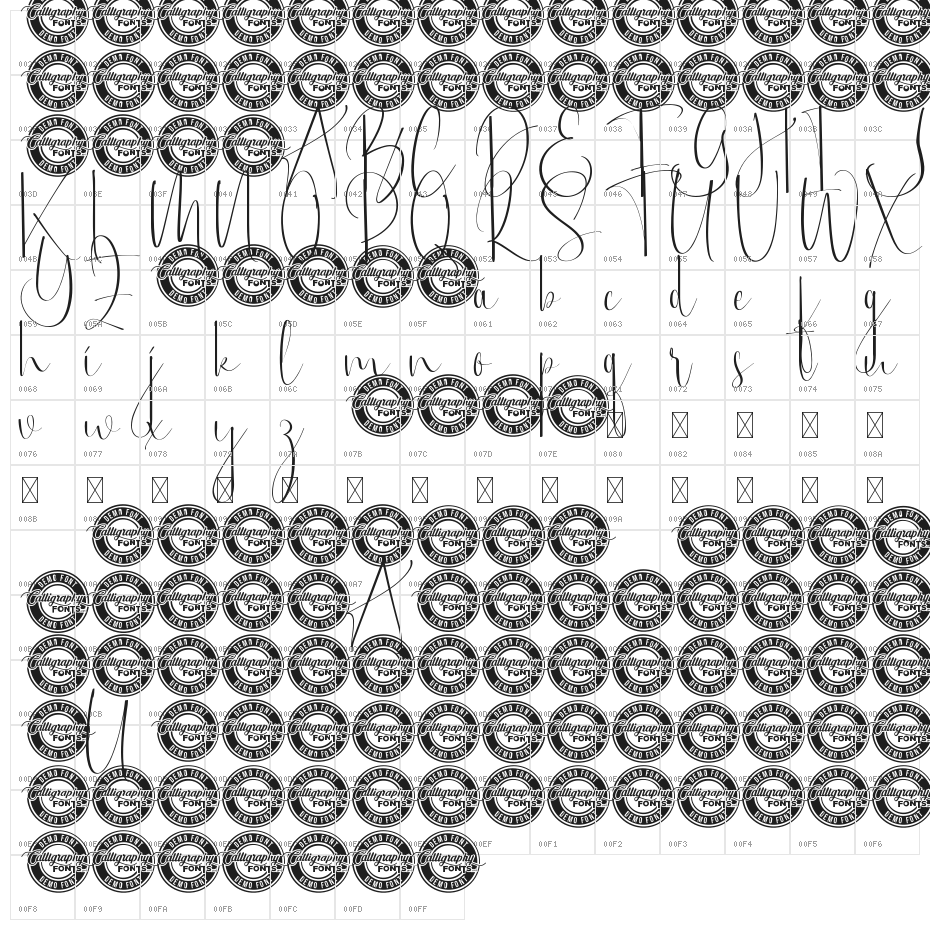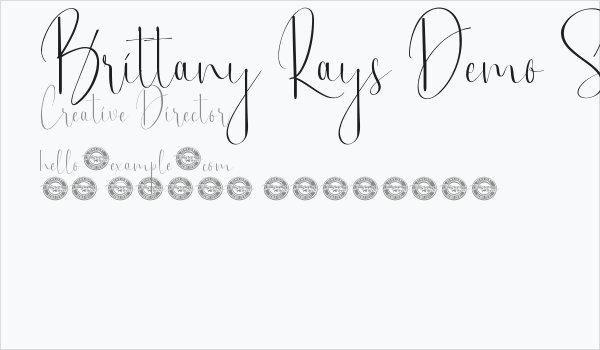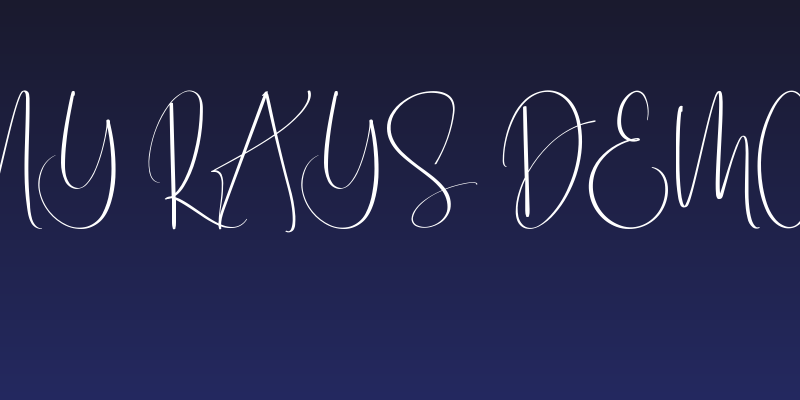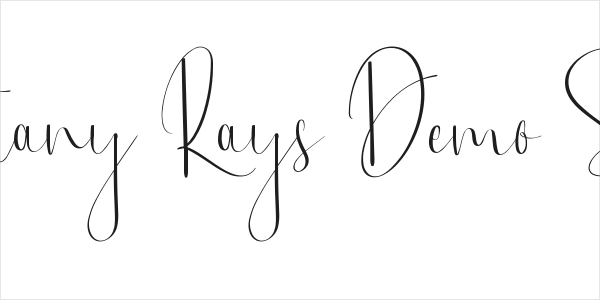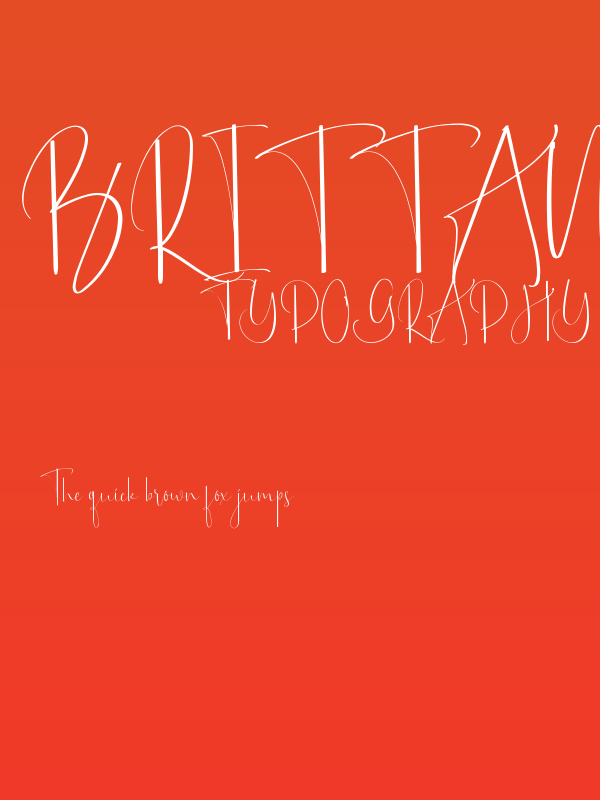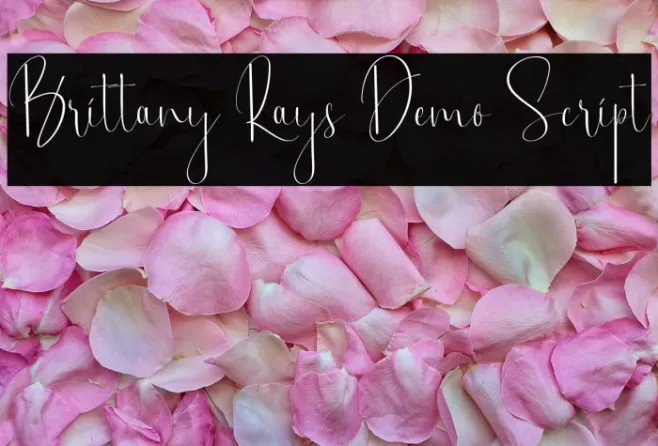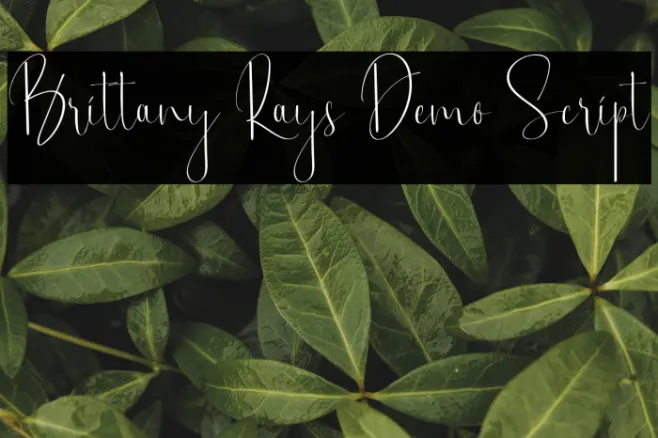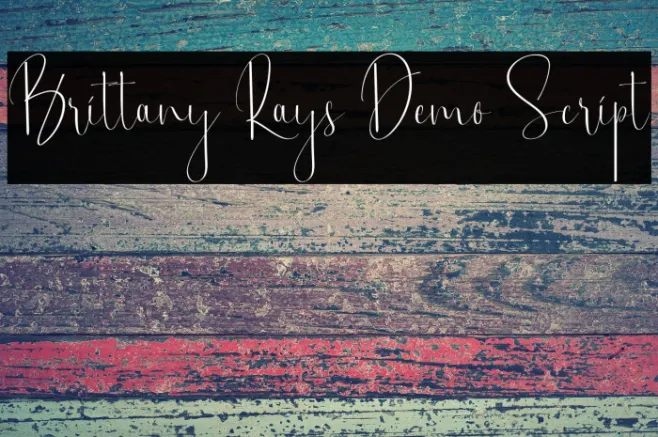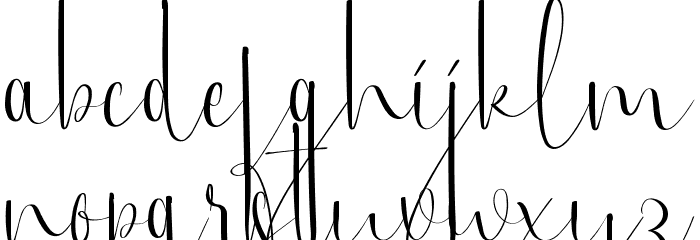
Brittany Rays Demo Script Font
Brittany Rays Demo Script Description
This font exudes elegance and sophistication with its fluid, cursive style. The letters are crafted with a delicate touch, featuring thin, graceful strokes that flow seamlessly into each other. The uppercase letters are tall and slender, while the lowercase letters maintain a consistent, flowing rhythm. The font's airy and open design gives it a light and breezy feel, making it perfect for projects that require a touch of class and refinement. The numerals and special characters are designed with the same attention to detail, ensuring a cohesive look across all text elements.
| Proposed Projects | Ideal for wedding invitations, elegant branding, personal stationery, and high-end product packaging. |